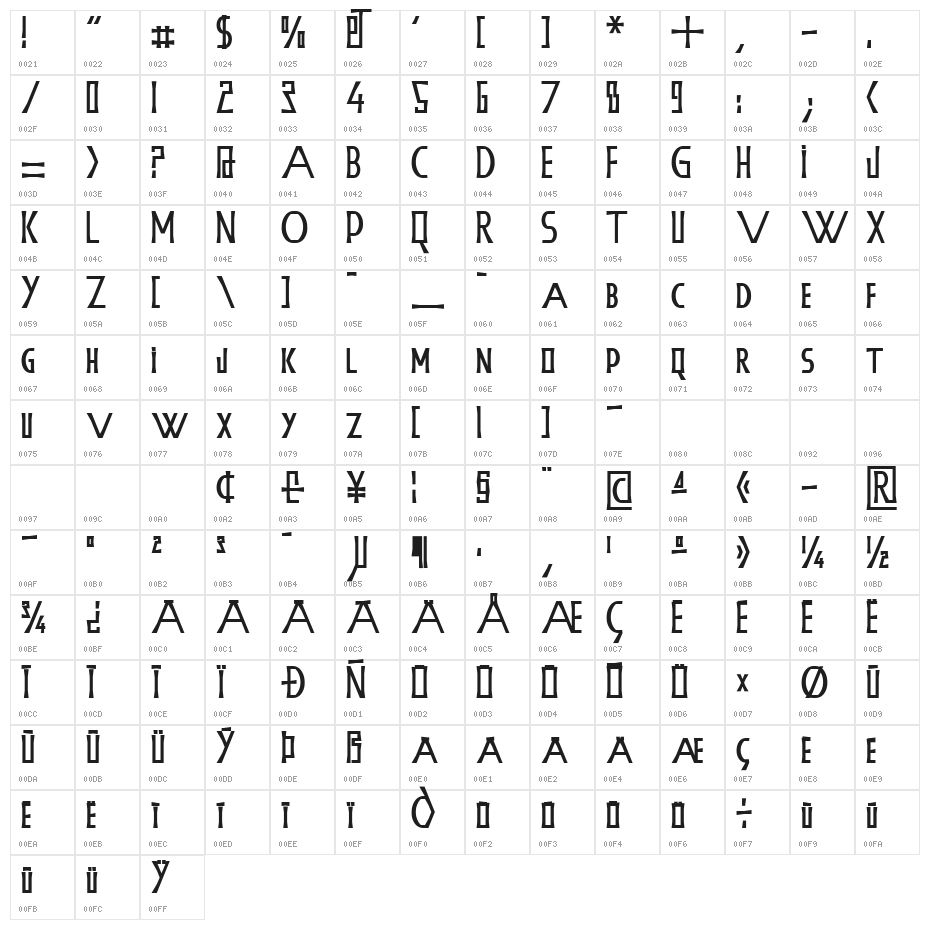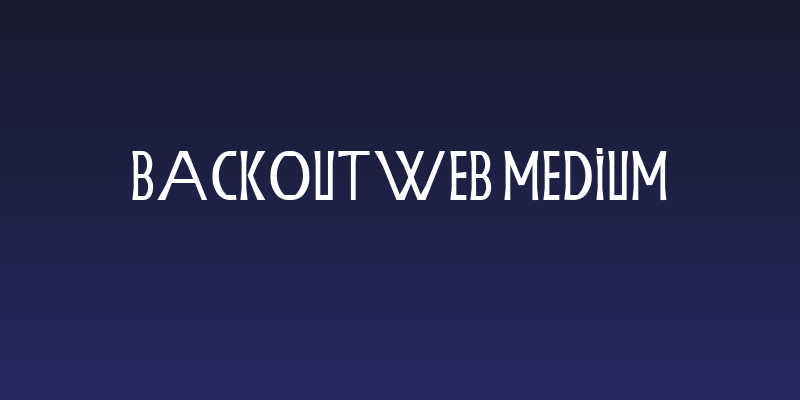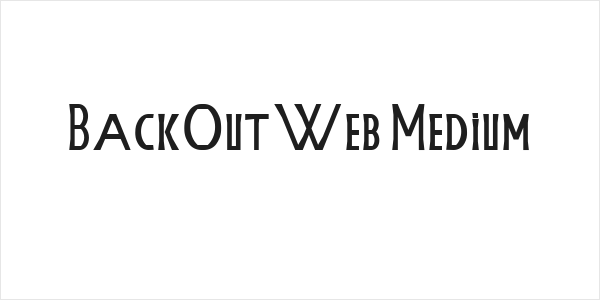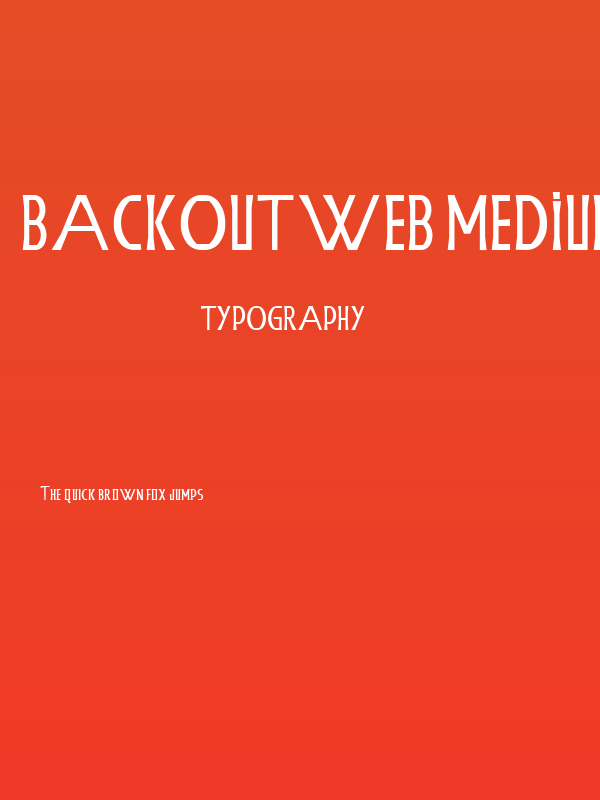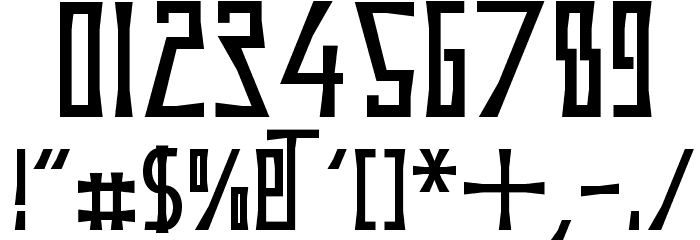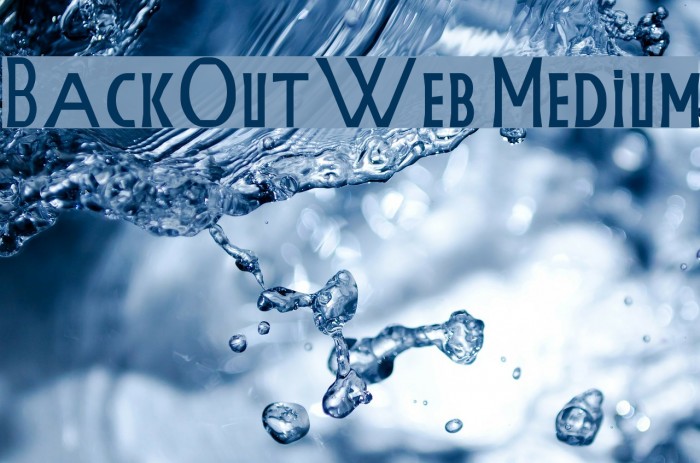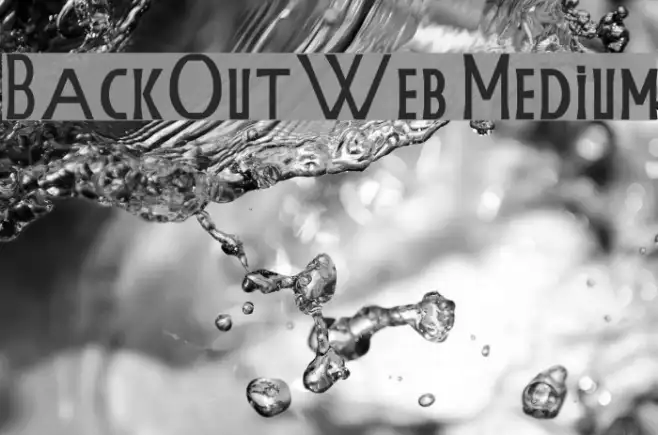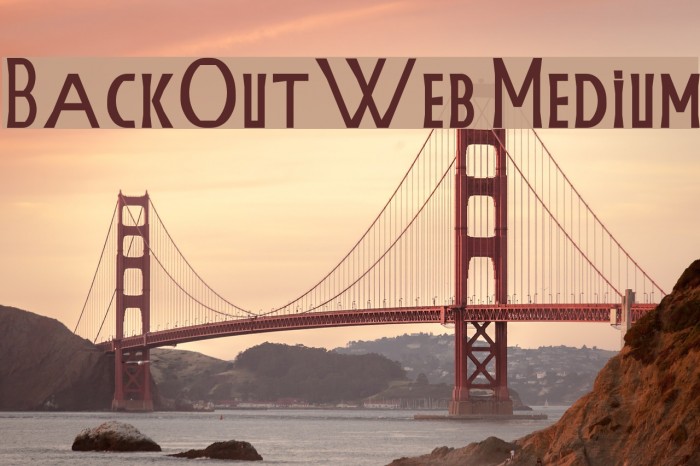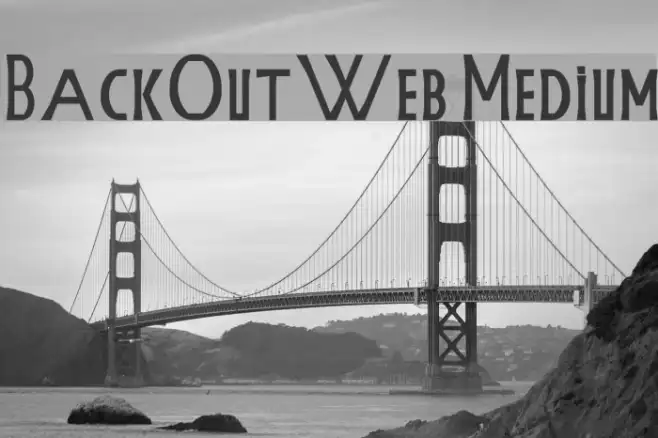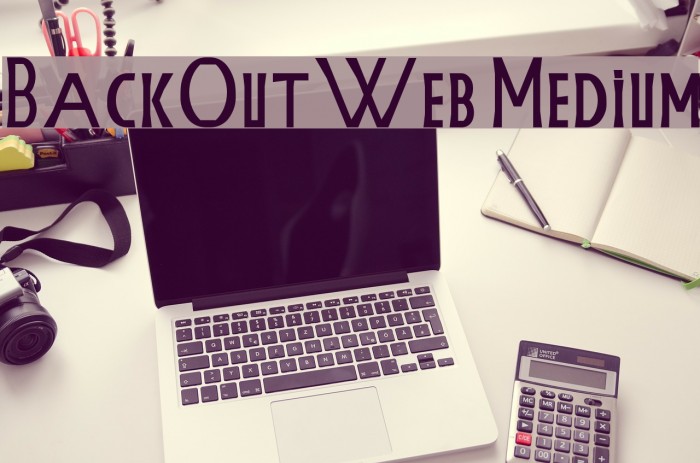
BackOutWeb Medium Font
BackOutWeb Medium Description
This font features a distinctive, angular design with a modern and edgy aesthetic. The characters are bold and slightly condensed, giving them a strong presence. The uppercase letters have sharp, geometric lines, while the lowercase letters maintain a consistent style with a touch of playfulness. The numerals are uniquely styled, matching the overall theme of the font. Special characters are creatively integrated, enhancing the font's versatility. This font is ideal for projects that require a bold and contemporary look, such as branding, posters, and digital media.
| Proposed Projects | Ideal for branding, posters, digital media, and any project needing a bold, contemporary look. |